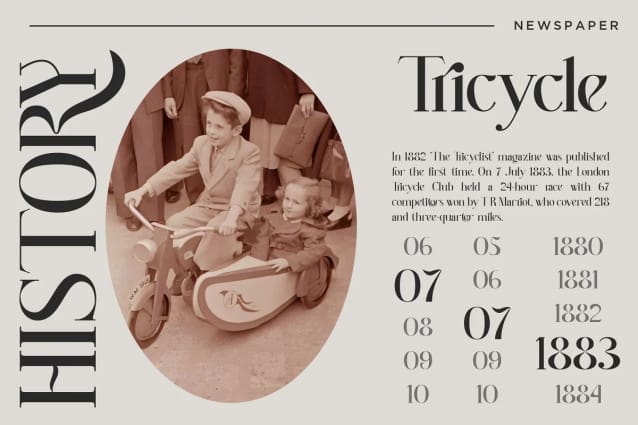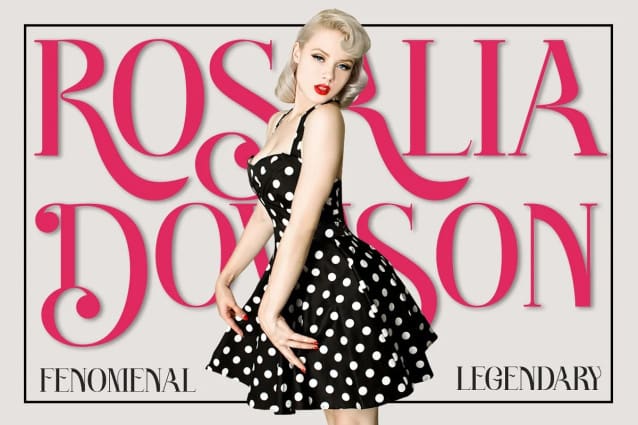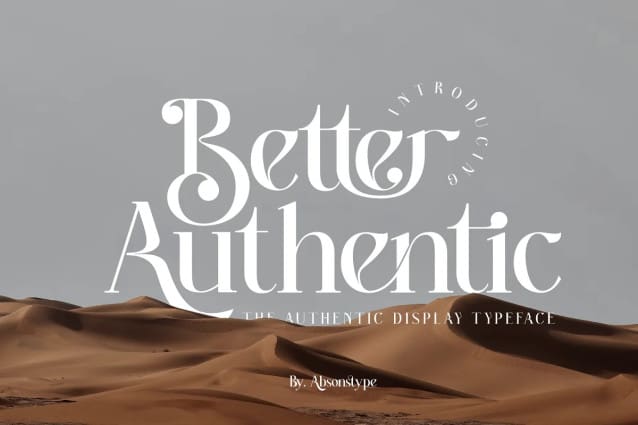
Better Authentic Font
Better Authentic Font is the Serif display typeface with combine uppercase and lowercase looks and feel nice balanced. Provide with alternates and ligatures font in variant style make the design letter looks nice. Honestly it works perfectly for headlines, logos, posters, packaging, T-shirts and much more.